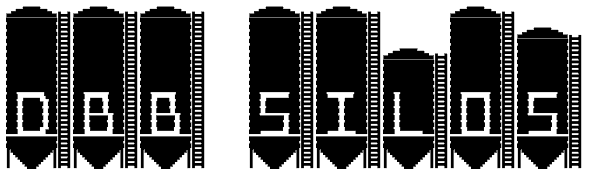
Digital Biz Bitz
Digital Biz Bitz is a family of fonts and fontbats designed for use in business learning. Use these elements to enhance the learning experience you create.
DBB Teller
DBB Teller Font
DBB Easel Learning
DBB Easel Learning Font
DBB Teller Companion
DBB Teller Companion Font
Digital Biz Bitz 2
Digital Biz Bitz 2 Font
DBB Silos
DBB Silos Font
Digital Biz Bitz 3
Digital Biz Bitz 3 Font
DBB Computer Screen
DBB Computer Screen Font
DBB Text Me
DBB Text Me Font
DBB Attention
DBB Attention Font
DBB Weather System
DBB Weather System Font
DBB Tool Kit
DBB Tool Kit Font
Digital Biz Bitz 1
Digital Biz Bitz 1 Font
DBB Tack Note
DBB Tack Note Font